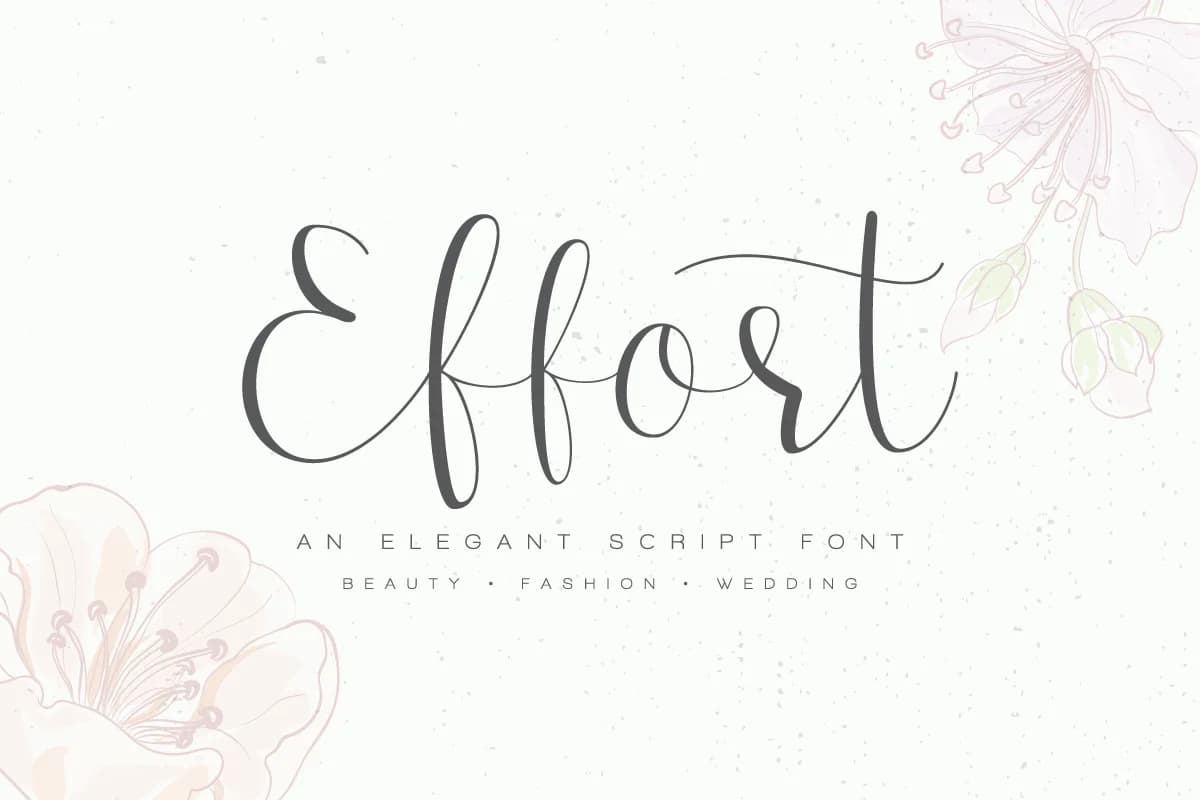
Effort Font by Dharmas Studio is a modern calligraphy typeface that blends contemporary design sensibilities with fluid handwritten strokes, delivering refined sophistication to creative projects. This typeface truly shines in wedding invitation suites where elegance becomes the defining visual element, custom event stationery that demands genuine personality, and luxury brand packaging that requires visual distinction when displayed on retail shelves alongside competitors. The graceful, flowing letterforms work beautifully for romantic social media graphics, allowing creators to establish a premium aesthetic across digital platforms while engaging audiences who genuinely value quality craftsmanship.
Beyond traditional design applications, Effort proves invaluable for greeting card designs where sentiments deserve elegance, artisanal product branding that celebrates handmade quality, and boutique cosmetics labeling where handcrafted appeal resonates deeply with discerning audiences. The font's carefully balanced approach between readability and decorative character makes it equally suitable for both prominent headlines and display purposes, adapting seamlessly to various creative contexts without sacrificing legibility or impact. Whether viewed on screen or reproduced in print, the sophisticated flow maintains its visual elegance consistently.
Effort Font is a script font that shines as a display or heading face. Pair it with a clean sans-serif or serif font for body text β the contrast creates a clear hierarchy while the two styles stay balanced and easy to read.